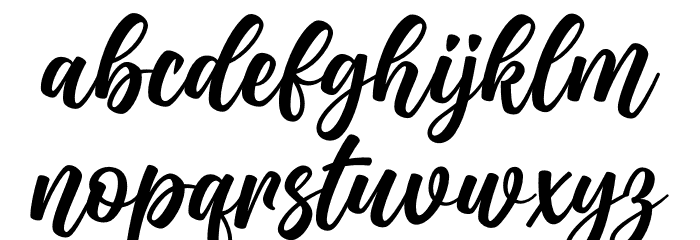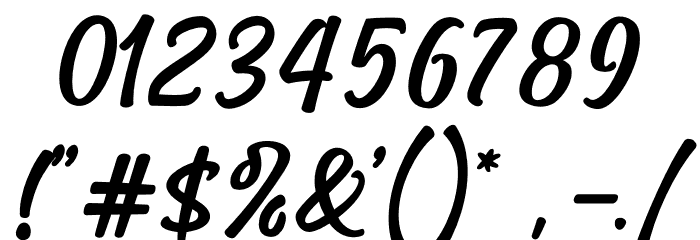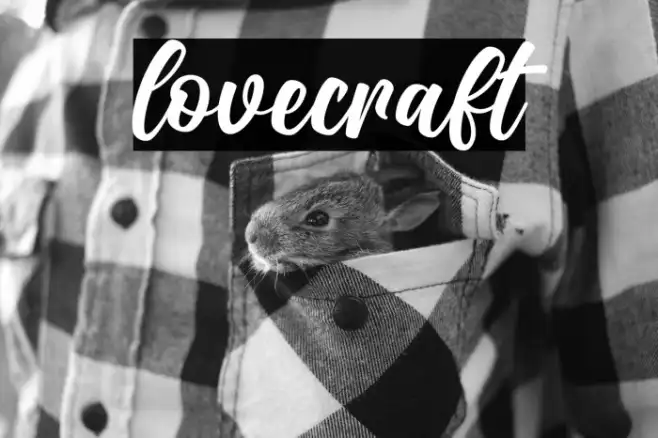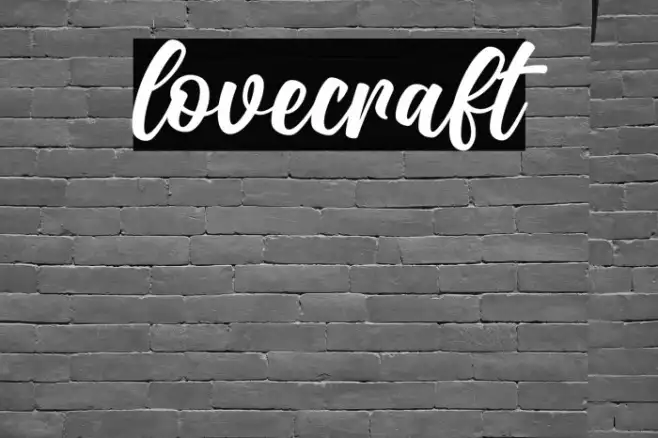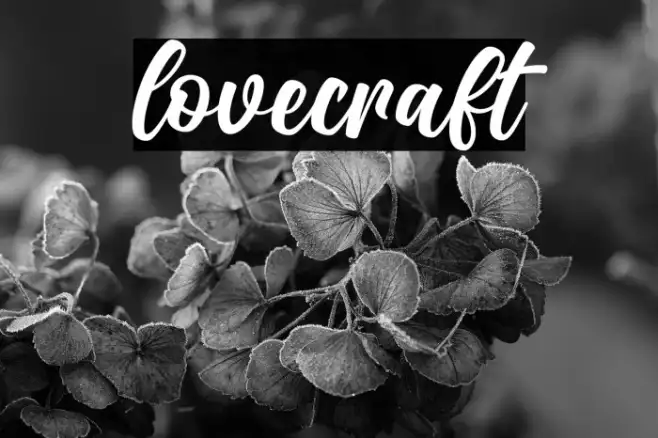
lovecraft Font
This font features a bold, flowing script style that exudes elegance and sophistication. The characters are interconnected with smooth, sweeping curves, giving it a handwritten appearance. The uppercase letters are particularly ornate, with dramatic flourishes that add a touch of flair. The lowercase letters maintain a consistent style, ensuring readability while retaining the decorative nature of the font. Numbers and special characters are designed to match the overall aesthetic, making this font versatile for various uses. Its bold weight and medium contrast in stroke thickness enhance its visibility, making it suitable for eye-catching designs.
A bold, elegant script font with flowing, interconnected characters.
- Proposed Projects: Ideal for wedding invitations, branding, logos, and elegant packaging designs.
- Overall Style: Elegant, Decorative
- Use Case: Logos, Invitations, Branding